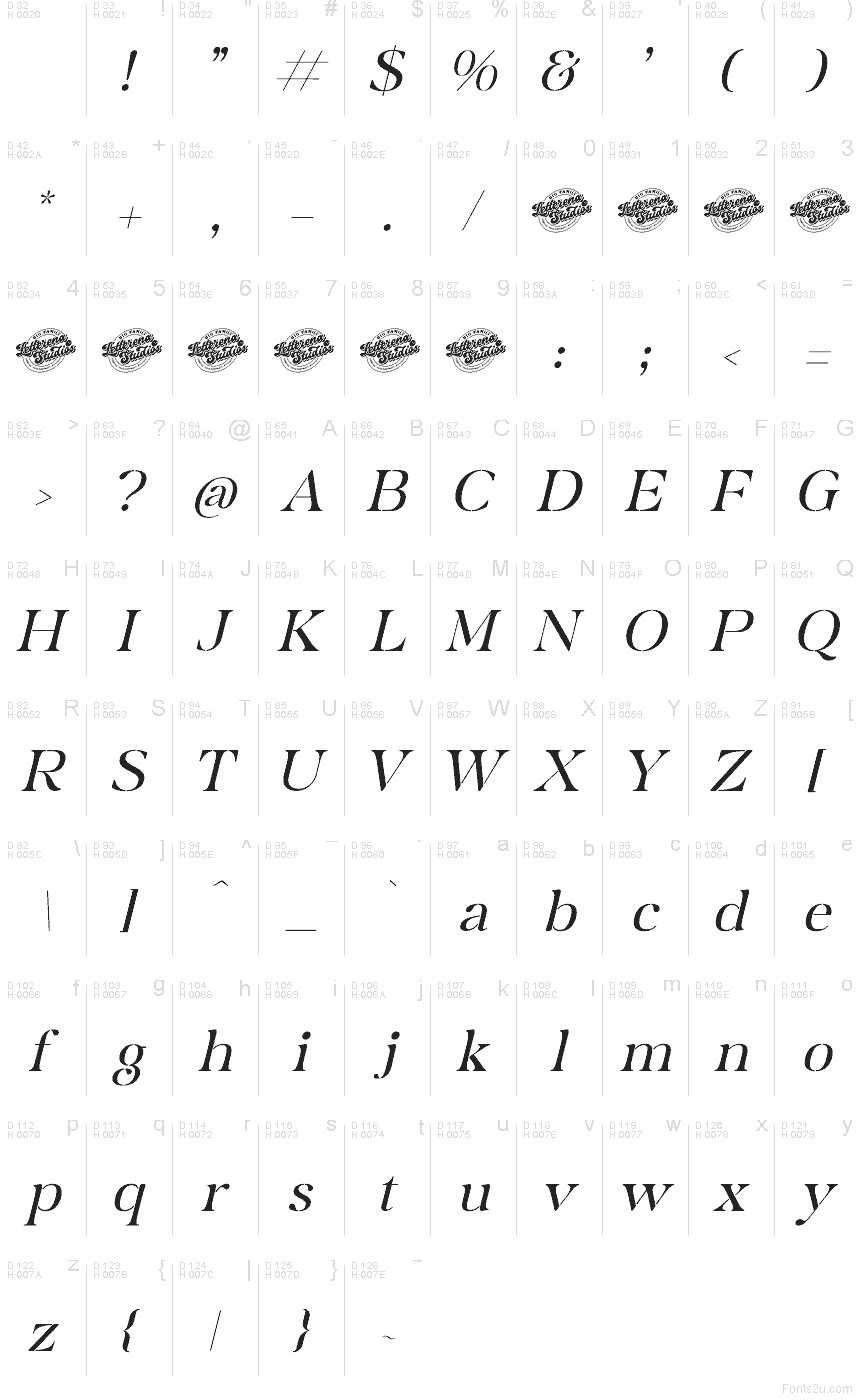
Mergila DEMO VERSION Italic
Mergila Italic font by Letterena Studios is a free serif typeface with the polish of a fashion masthead. Its slanted forms feel like quick, confident brushstrokes—sleek stems, inky curves, and those lush ball terminals that curl like ribbon. The Mergila family brings a sense of couture drama, giving every word a tailored, editorial presence without feeling stiff or old-fashioned.
Using Mergila Italic, you can give logos, magazine covers, perfume or skincare packaging, wedding invitations, posters, and bold social media graphics a luxurious, high-end voice. This free font thrives at larger sizes where its sculpted details can breathe; pair it with a clean geometric sans for body text to keep layouts crisp and modern.